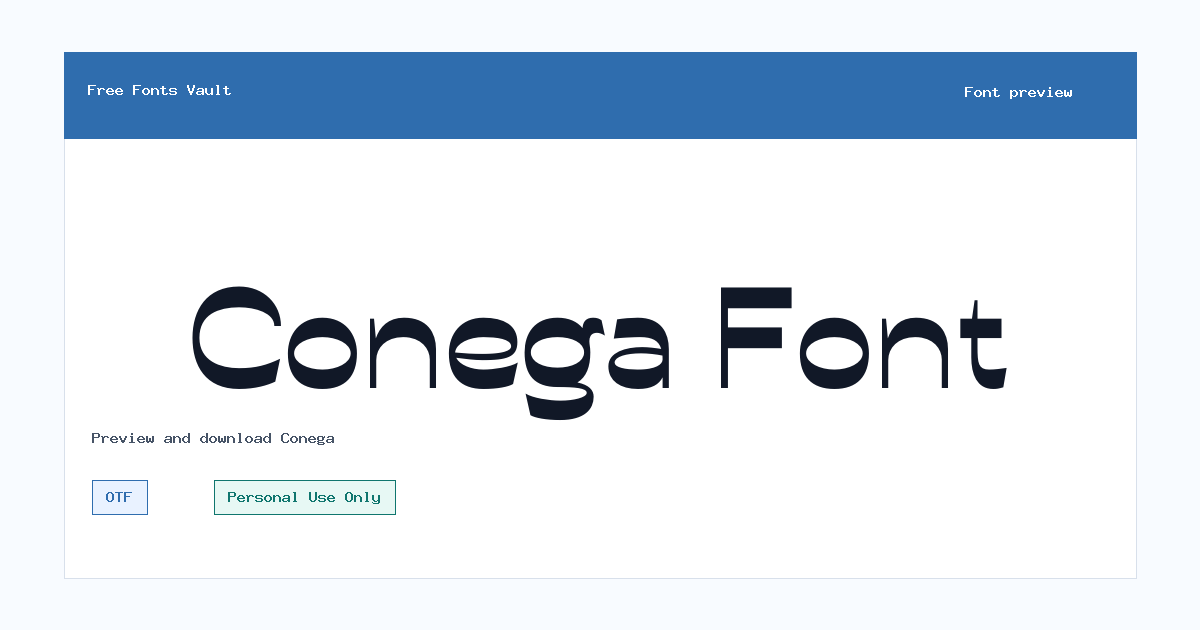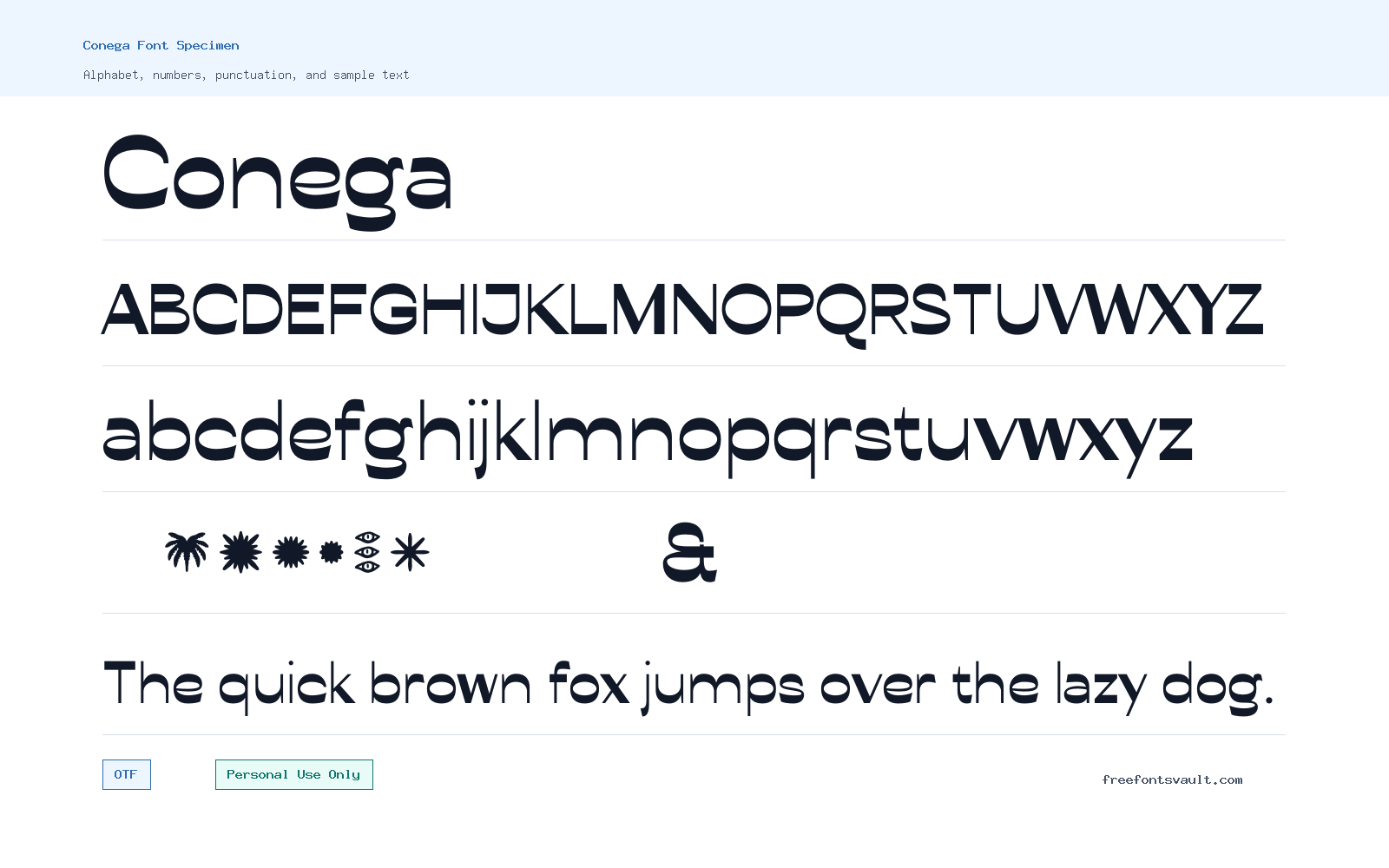
Conega
- Designer Putu Dody Permana
- Foundry Hishand Studio
Conega is a rounded display font with a smooth, modern look and a strong headline presence. It is best treated as a short-text font: try it for titles, posters, labels, social graphics, and other places where the words need to feel clean and noticeable without becoming too formal.
Conega has a soft geometric feel, with wide rounded shapes and compact inner cuts that give the letters a distinctive display character. The specimen shows both uppercase and lowercase letters, numerals, punctuation, and accented characters, so it can handle more than a basic all-caps title. The regular style is delivered as an OTF font file, which makes it easy to test in common design tools that support OpenType fonts. Because the forms are bold and stylized, Conega works best when the text is short enough for each letter shape to stay clear.
Use Conega when you want a friendly display face for personal design experiments, mockups, event graphics, mood boards, stickers, packaging concepts, thumbnails, or title artwork. It can also work for playful branding drafts, but the license must be checked before any real client, product, or commercial release. In longer paragraphs, the rounded cuts and display proportions may slow reading, so pair it with a plain sans serif for body copy. In the preview box, test your exact words in uppercase, lowercase, and title case. Also try numbers, punctuation, and accented names if your design needs them, because display fonts can look very different across character types.
- Rounded display style with smooth, wide letterforms and a clean modern feel
- Regular OTF font with uppercase, lowercase, numerals, punctuation, and accented characters visible in testing
- Personal posters, social graphics, thumbnails, labels, stickers, and short headlines
- Logo drafts, packaging concepts, mood boards, and display text experiments where licensing is reviewed before release
Keep Conega large enough for its rounded cuts to stay visible. Use it for short lines rather than body text, leave comfortable spacing around the words, and pair it with a neutral sans serif for descriptions, captions, or longer reading. Before downloading, preview the exact phrase you plan to use and check whether your project is personal or needs a paid/commercial license.
What kind of font is Conega?
Conega is a display font with rounded, modern letterforms. It is better for headlines and short design text than for long paragraphs.
Who designed Conega?
Conega is credited to Putu Dody Permana of Hishand Studio.